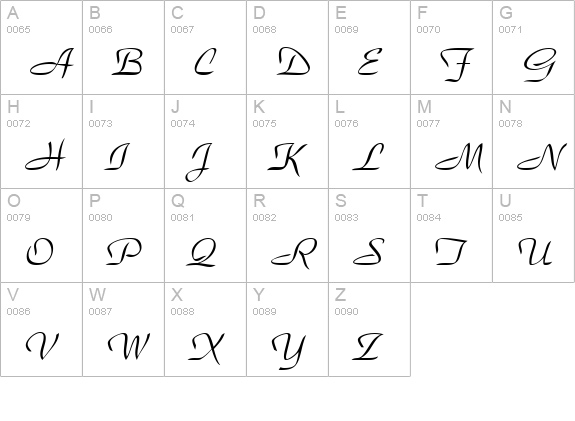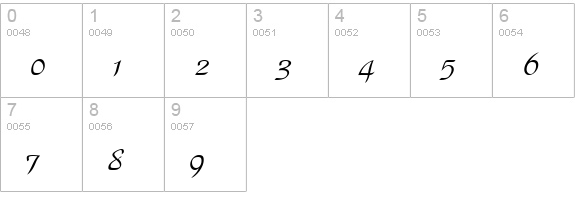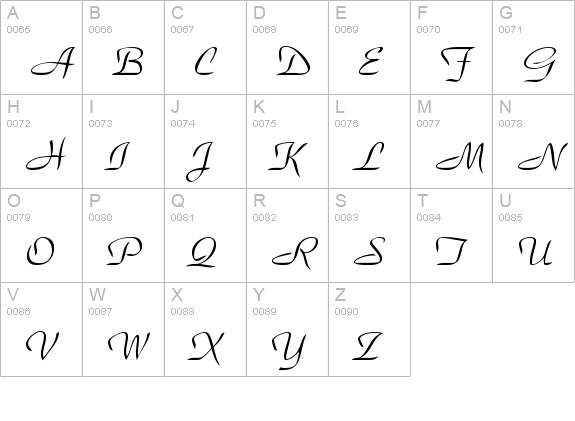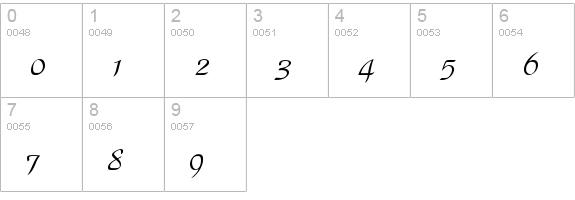
ParkAvenue Normal Font Details
ParkAvenue Normal is the standard, neutral variant in the ParkAvenue typeface family \xE2\x80\x94 well suited to general body text, paragraphs, and standard typographic work.
ParkAvenue Normal font is a classic and elegant typeface that exudes sophistication. With its clean lines and refined curves, this font adds a touch of elegance to any design project. Whether you're creating a stylish logo, designing a professional website, or crafting a beautiful invitation, ParkAvenue Normal font is the perfect choice. What sets this font apart is its versatility. It can be used for both headlines and body text, making it a valuable asset for any designer. The timeless appeal of ParkAvenue Normal font ensures that your designs will never go out of style. One of the best things about ParkAvenue Normal font is that it is freely available to download at FontsMarket.com. This means that you can easily access this stunning font without any hassle. Whether you're a professional designer or someone who simply appreciates beautiful typography, you can now enjoy the elegance of ParkAvenue Normal font for free. So why wait? Download ParkAvenue Normal font today and elevate your designs to new heights. With its timeless beauty and wide range of applications, this font is sure to become a staple in your design toolkit. Don't miss out on the opportunity to enhance your projects with this stunning font - get it for free at FontsMarket.com now.